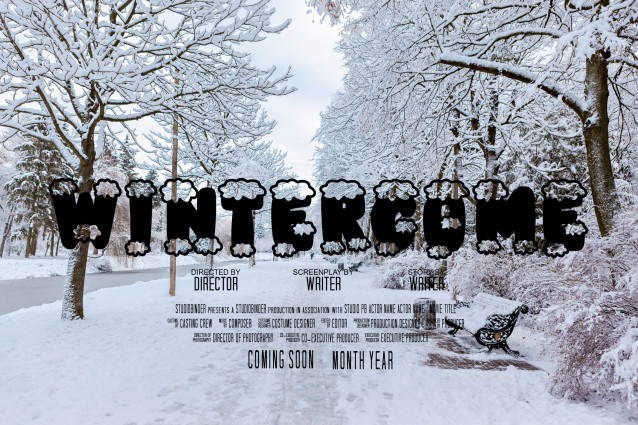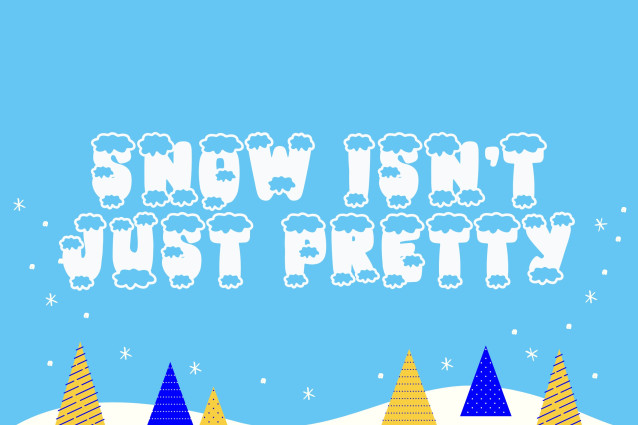
Retro Snow Font
Retro Snow Font is a fun and nostalgic display font that blends retro charm with a frosty twist. Inspired by vintage holiday aesthetics, this typeface features chunky letterforms with playful curves and snow-touched details that make it perfect for festive projects. Whether you’re creating holiday cards, cozy apparel, or seasonal signage, Retro Snow brings a cheerful and wintry vibe to any design.